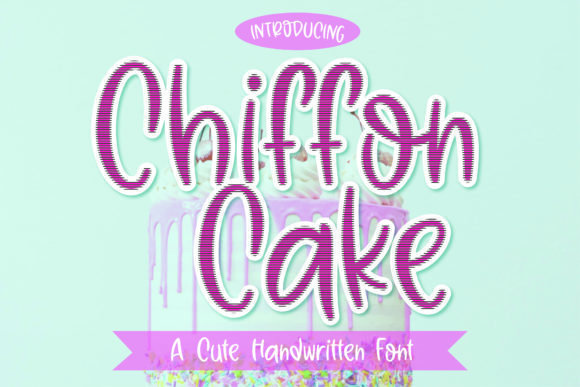
Discover the Sweet Delight of Chiffon Cake Font
As a designer, have you ever found yourself brainstorming a new project, but struggling to find the perfect font to match your vision? You know the feeling – that spark of creativity is there, but it’s just waiting to be ignited by the right typography. For me, that moment came when I stumbled upon the Chiffon Cake Font, a delightful script font that exudes joy and whimsy.
Created with the intention of bringing a refreshing look to designs, Chiffon Cake Font is a beautiful addition to any project. Its playful, cursive strokes make it perfect for capturing the essence of springtime, summer days, or any other occasion that calls for a light and airy feel. Whether you’re designing a wedding invitation, a food blog, or a children’s book, Chiffon Cake Font is sure to add a touch of sweetness to your designs.
Chiffon Cake Font Key Features
- Font Family: Chiffon Cake Font is a unique, hand-drawn script font designed to evoke the elegance of a chiffon cake.
- Size: The font family includes 6 weights, ranging from Thin to Extra Bold, offering flexibility for various design applications.
- Resolution: The font is designed to be scalable, making it suitable for use in a wide range of resolutions, from low to high DPI.
- Unique Characteristics: Chiffon Cake Font features elegant, flowing lines and subtle texture, reminiscent of the delicate layers of a chiffon cake.
Chiffon Cake Font Review
Overall, I found the Chiffon Cake Font to be a charming and elegant choice for any project. ✨ Its light, airy feel makes it perfect for wedding invitations, baby showers, and other special occasions. The font’s delicate texture and subtle texture variations give it a unique character that’s hard to find in other fonts.
- ✨ Elegant and refined design
- ✨ Suitable for various occasions, including weddings and baby showers
- ✨ Unique texture and subtle variations
- ✨ High-resolution images available for clear printing
- ⚠️ Limited font sizes available, which may not be ideal for large or small text
- ⚠️ May not be suitable for bold or dramatic text, as it can become overwhelmed
- ⚠️ Some users may find the font too delicate or hard to read in certain contexts
Overall, I would recommend the Chiffon Cake Font for projects where a light, elegant feel is desired. While it has some limitations, its unique character and versatility make it a great addition to any designer’s toolkit.
Tips for Getting the Most Out of the Chiffon Cake Font
Use the Chiffon Cake Font to add a touch of elegance and sophistication to your designs.
Pair the font with other elegant fonts to create a cohesive look.
Use the font in creative ways, such as in headings, titles, or as a background texture.
The Chiffon Cake Font is ideal for:
Celebration and wedding invitations
Baby shower and birthday party invitations
Wedding and event stationery
Alternatives to Chiffon Cake Font
Pacifico Font is a beautiful, elegant script font that is perfect for creating a romantic or vintage feel. It’s ideal for wedding invitations, greeting cards, or any design that requires a touch of sophistication.
Compared to Chiffon Cake Font, Pacifico Font has a more refined and polished look, making it suitable for high-end designs. While Chiffon Cake Font has a more playful and whimsical feel, Pacifico Font is more suited for formal occasions.
Great Vibes Font is a modern, cursive font that is perfect for creating a fun and energetic vibe. It’s ideal for designs that require a youthful and playful feel, such as social media posts, blog headers, or advertisements.